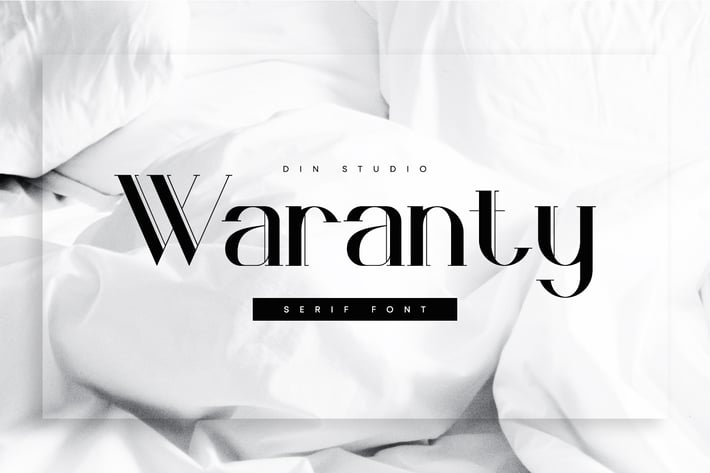
Waranty-Elegant Serif Font
Waranty is a elegant serif font. Made for any professional project branding. It is the best for logos, branding and quotes. Every letter has a unique and beautiful touch.